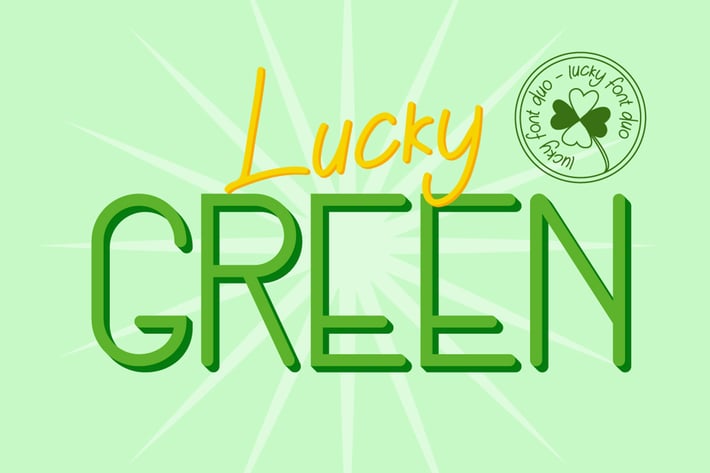
Lucky Green Font Duo
Lucky Green a font that bring luck for your design. This font is perfectly suited to signature, stationery, logo, typography quotes, magazine or book cover, website header, clothing, branding, packaging design and more.